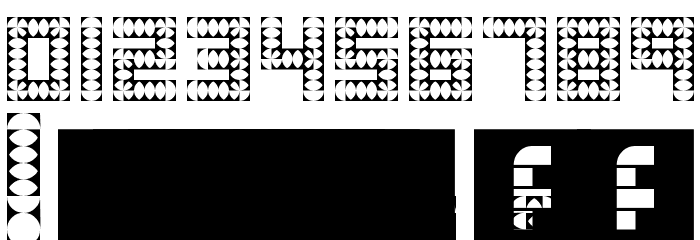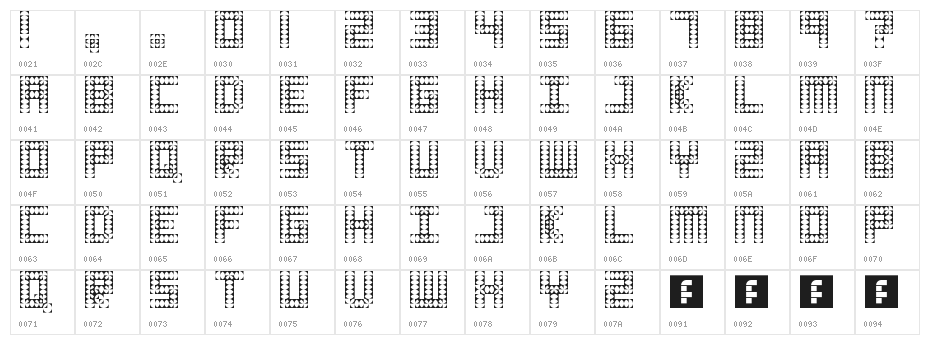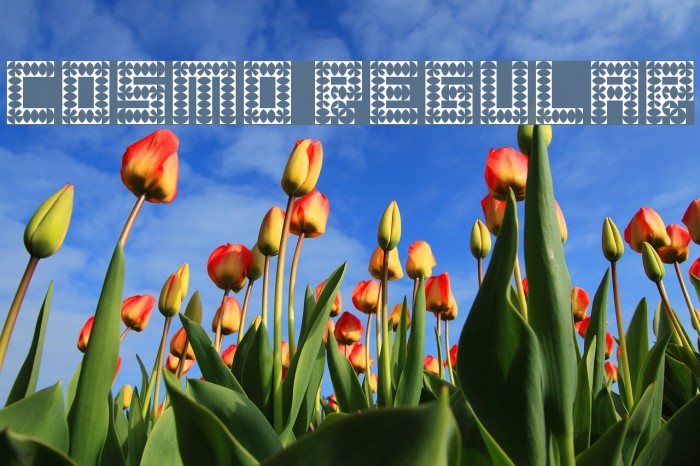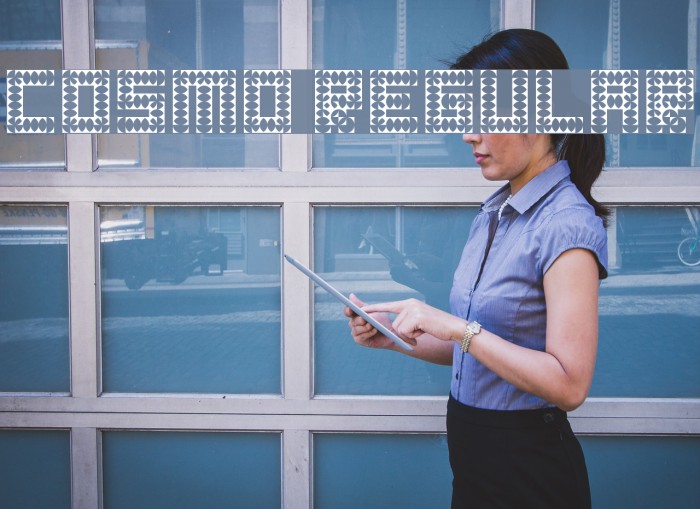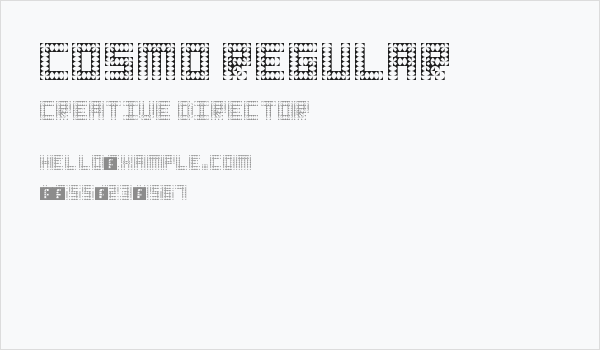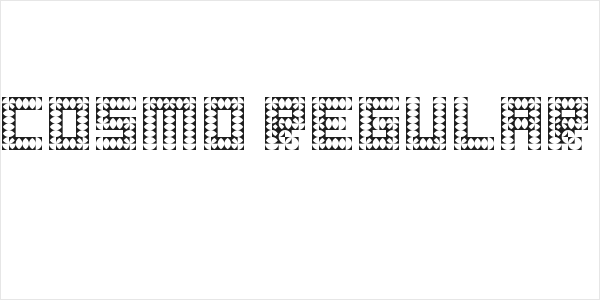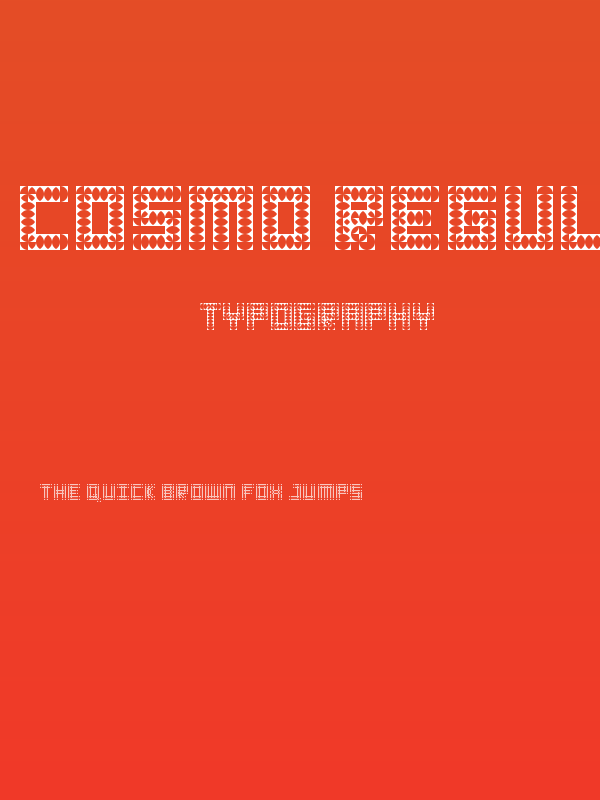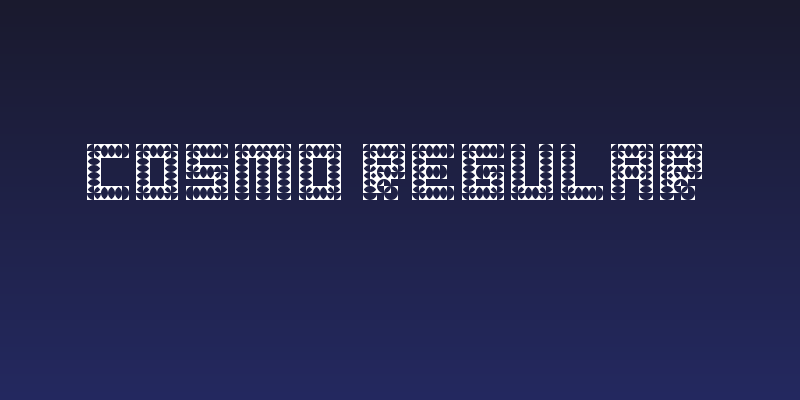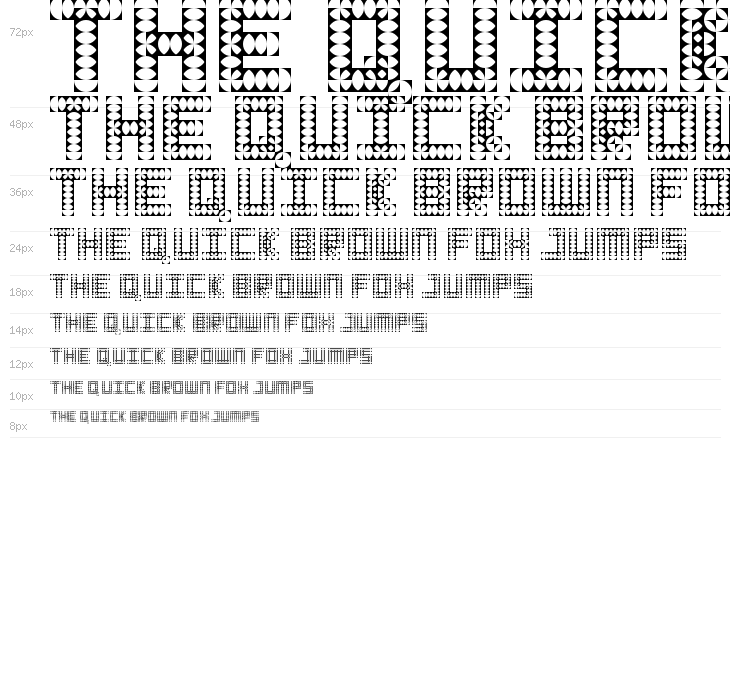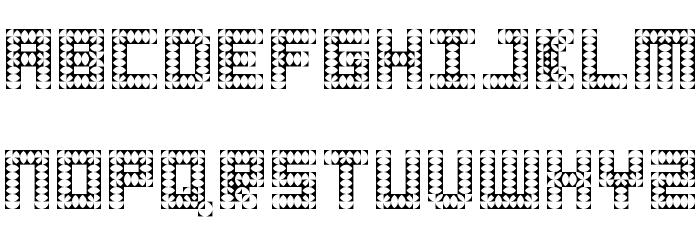
COSMO Regular Font
COSMO Regular Description
This font features a unique geometric pattern within each character, creating a visually striking and modern appearance. The letters are constructed with a series of repeating circular shapes that form a cohesive and decorative design. The overall look is bold and eye-catching, making it ideal for projects that require a strong visual impact. The uppercase and lowercase letters maintain a consistent style, while the numbers and special characters follow the same geometric theme. This font is perfect for creative projects that aim to stand out with a distinctive and artistic flair.